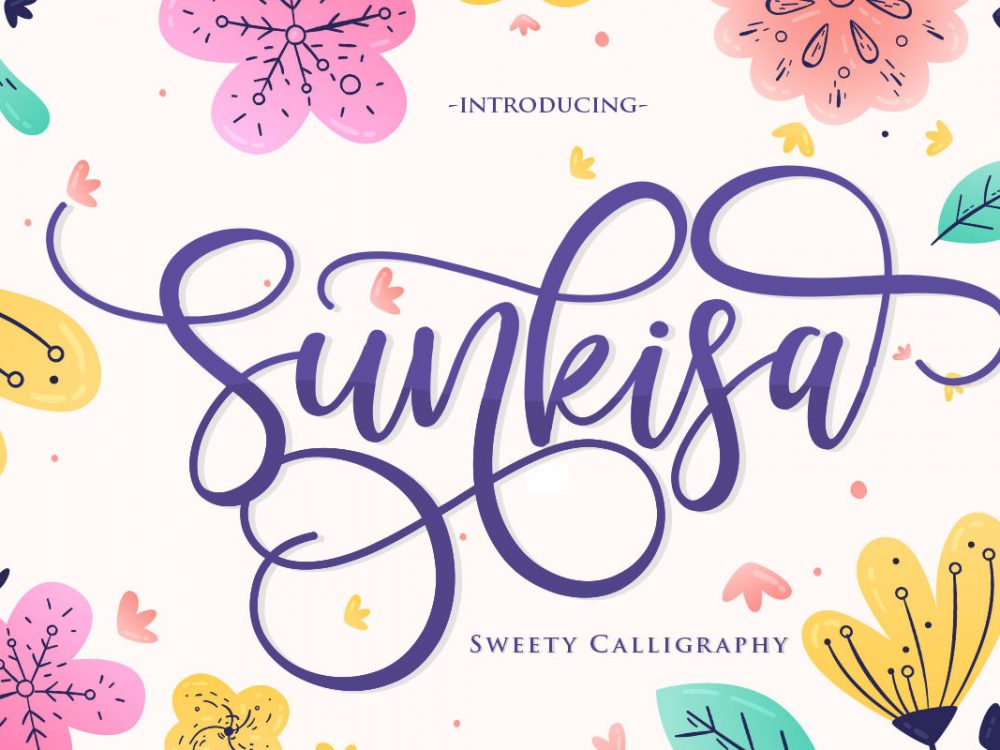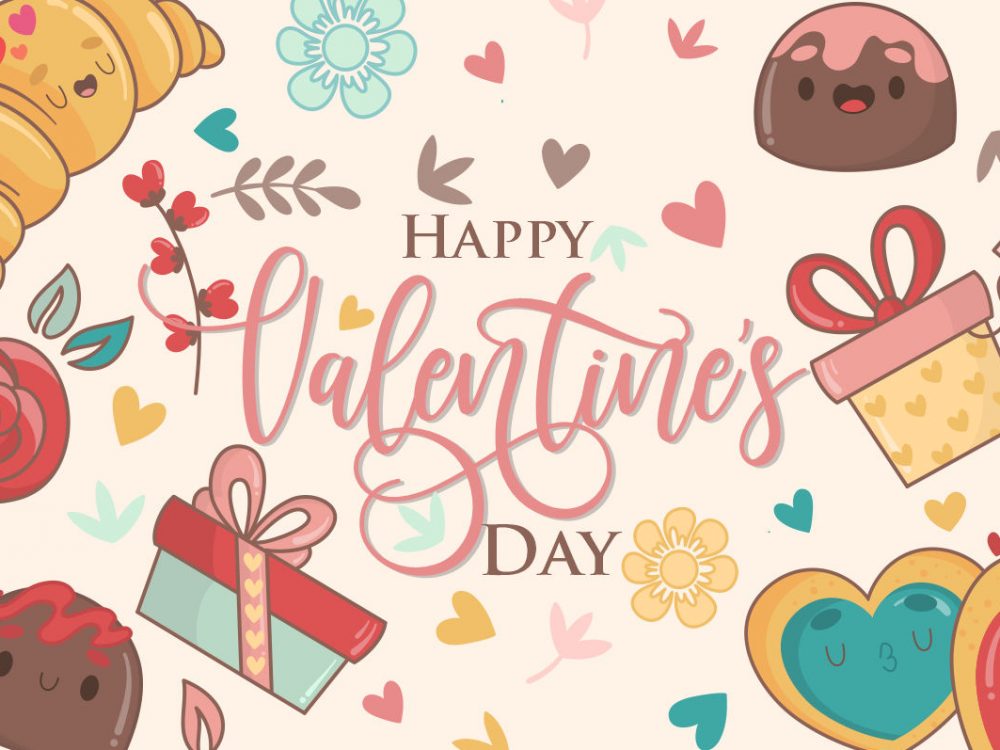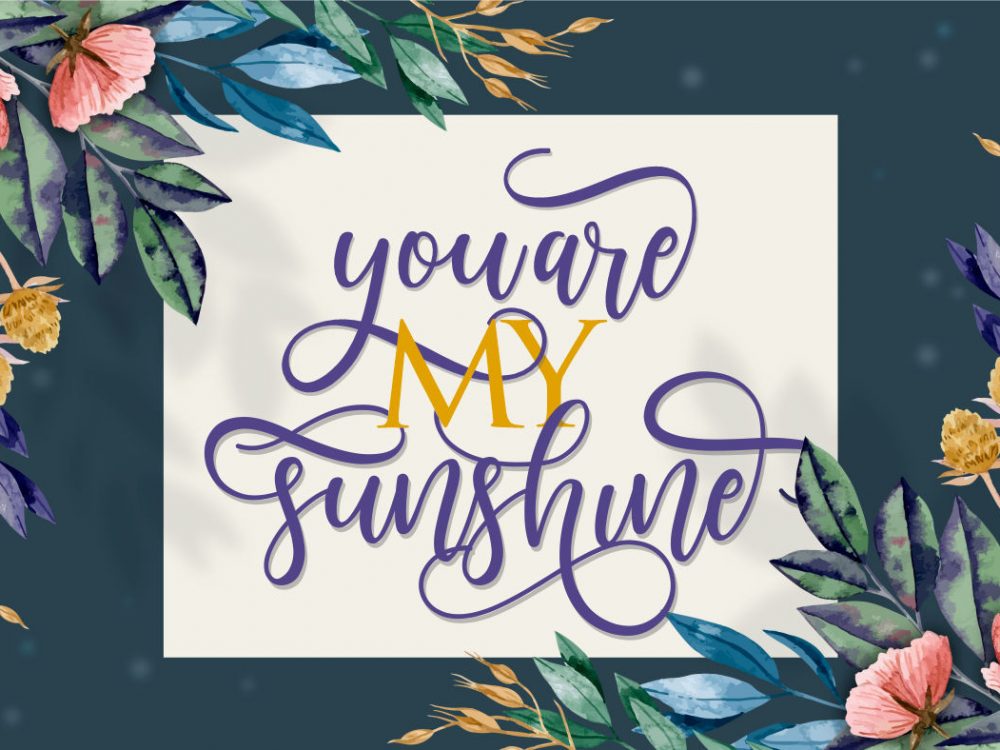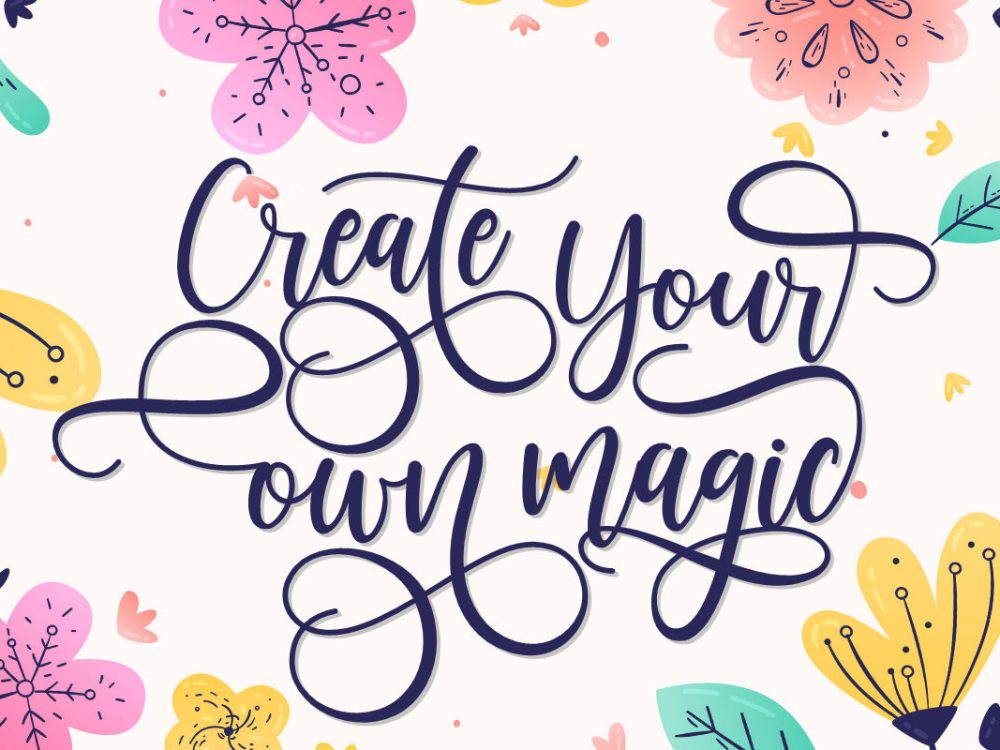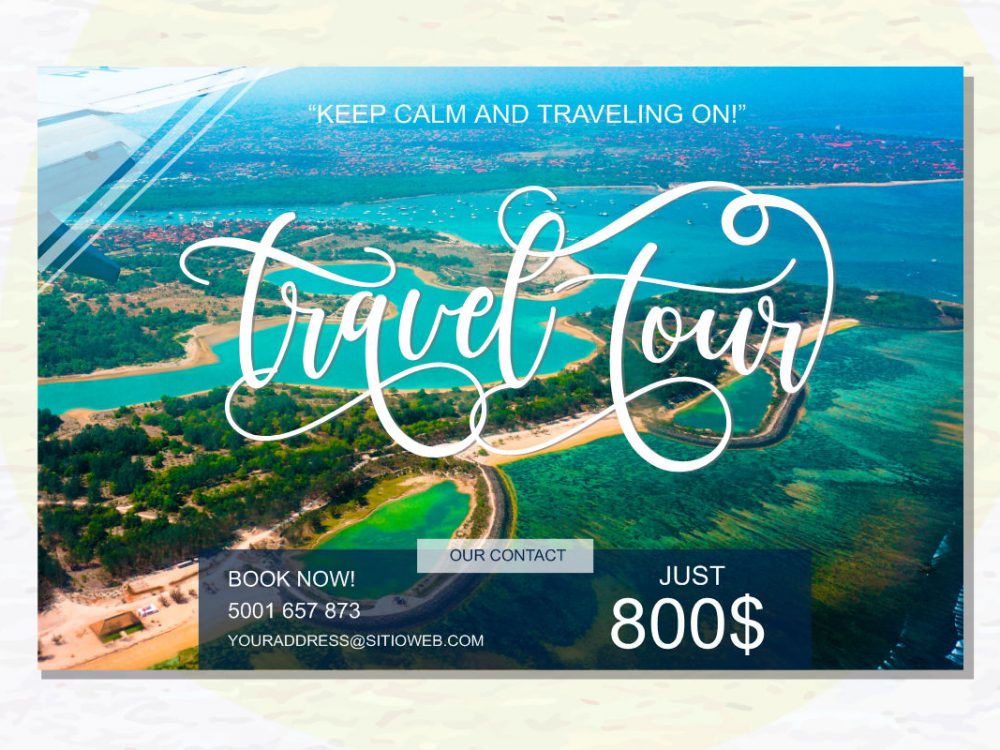
Sunkisa Free Font
Sunkisa Free Font is an interesting high-quality modern typeface with a calligraphic style. This font is well suited for a variety of design projects that require a scripted calligraphic font. You can use this font to create memorable romantic posters, wedding invitations, greeting cards, branding, flyers, t-shirt and pillow prints, and more. Improve the quality and increase the popularity of your design projects by using this font. If you like it don’t forget to check out the full version.